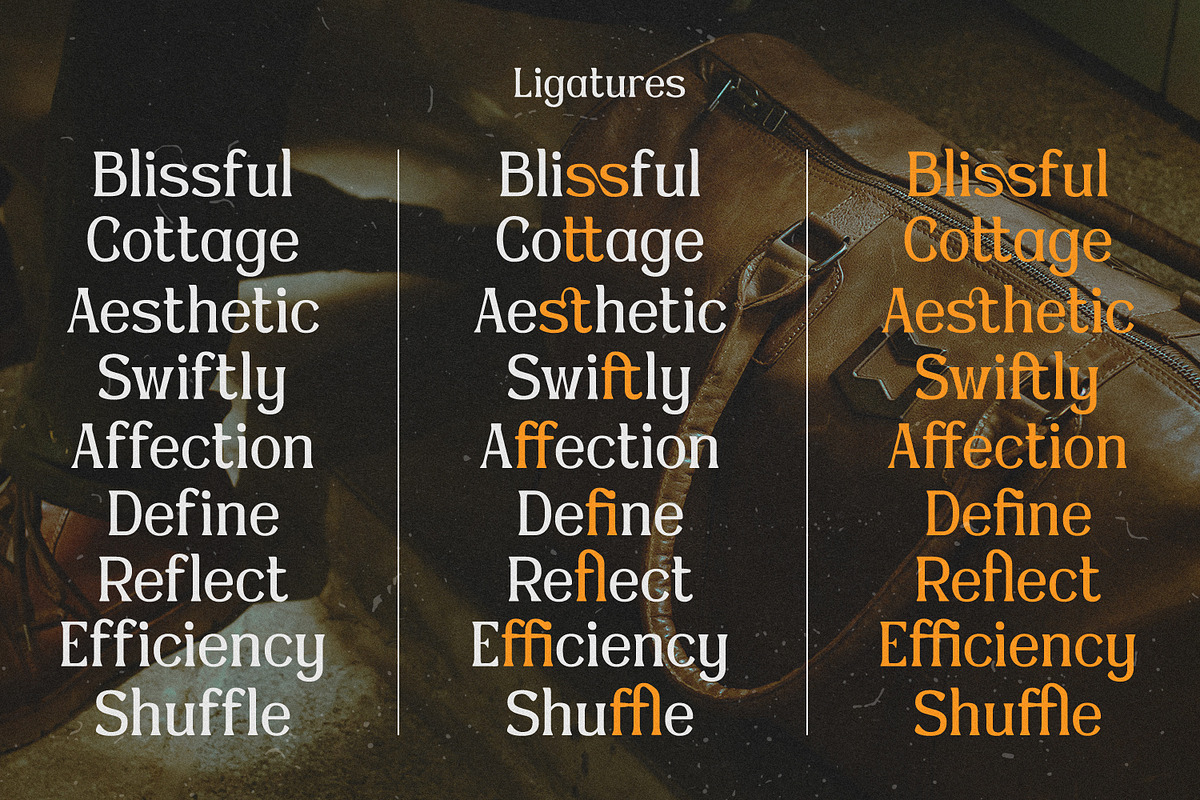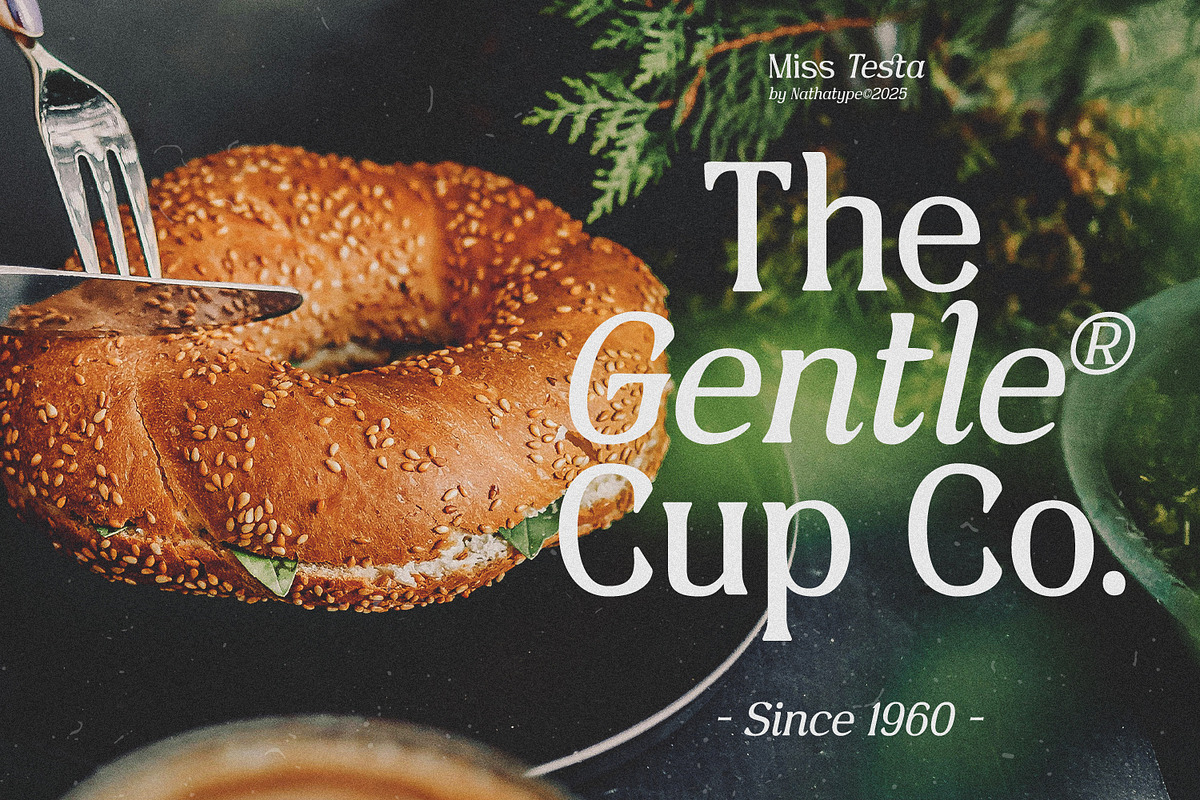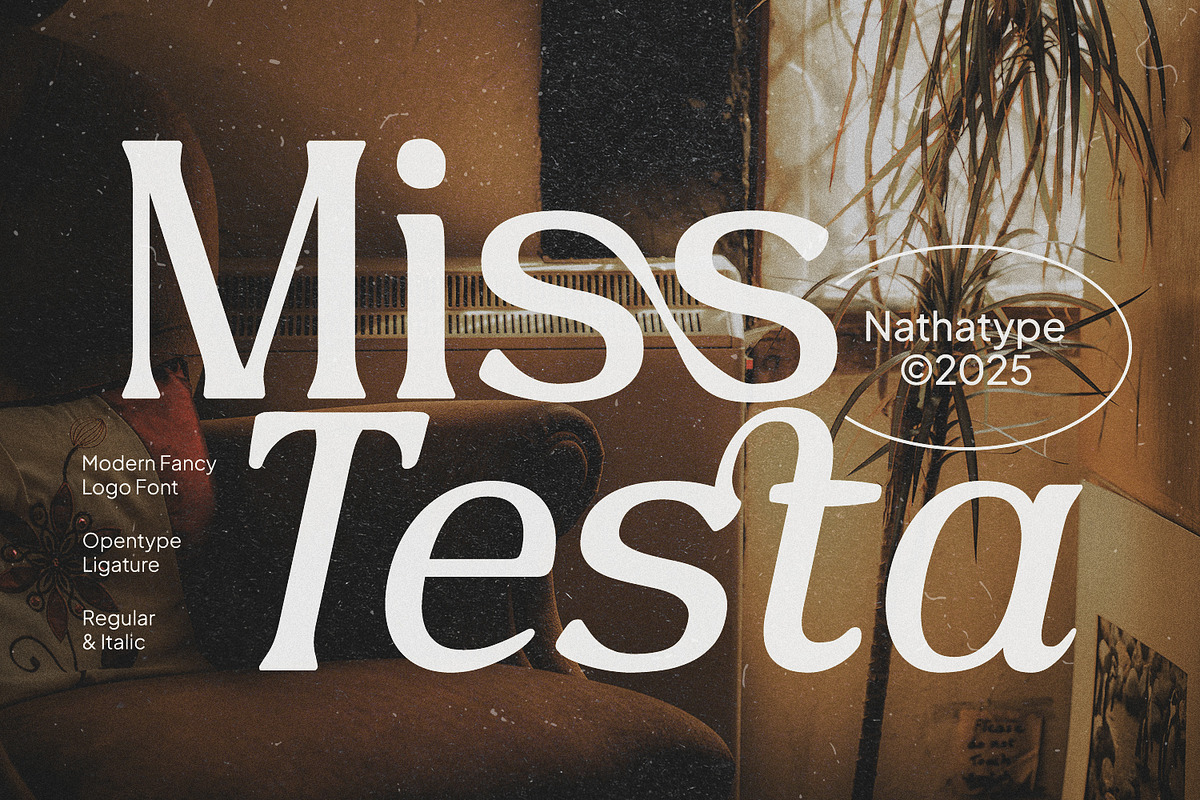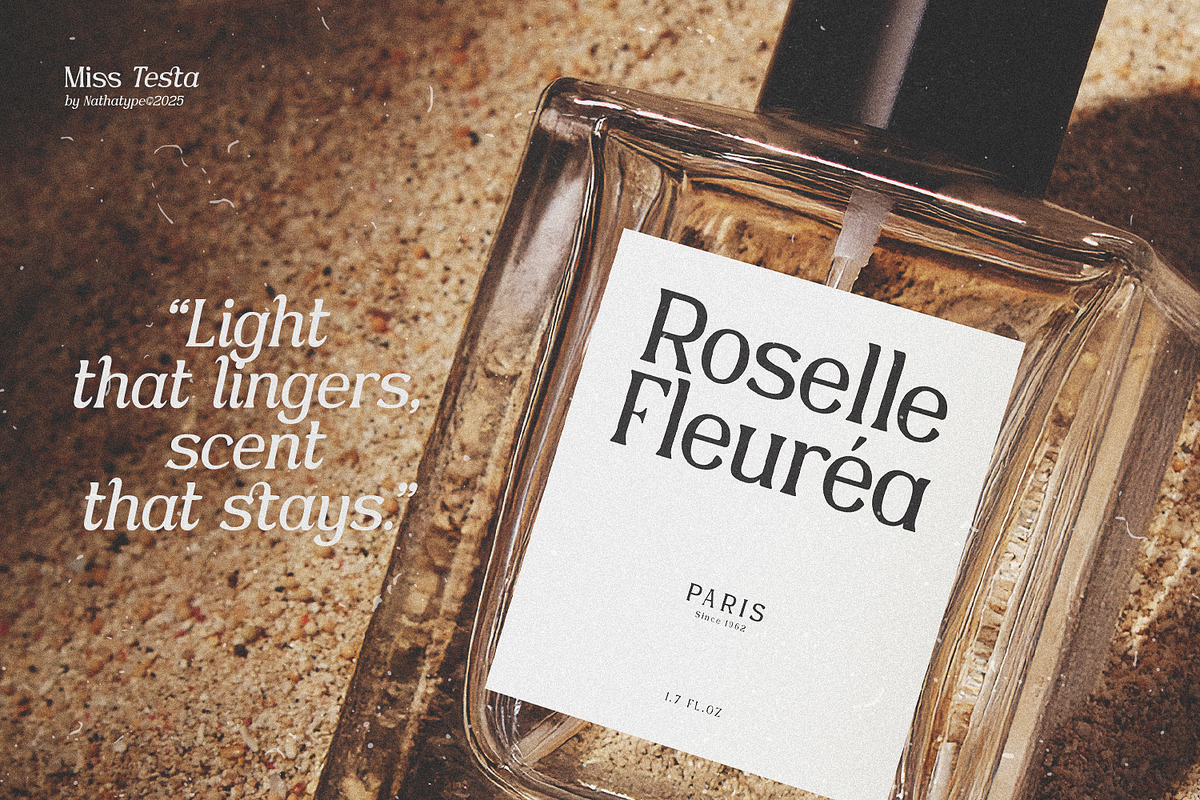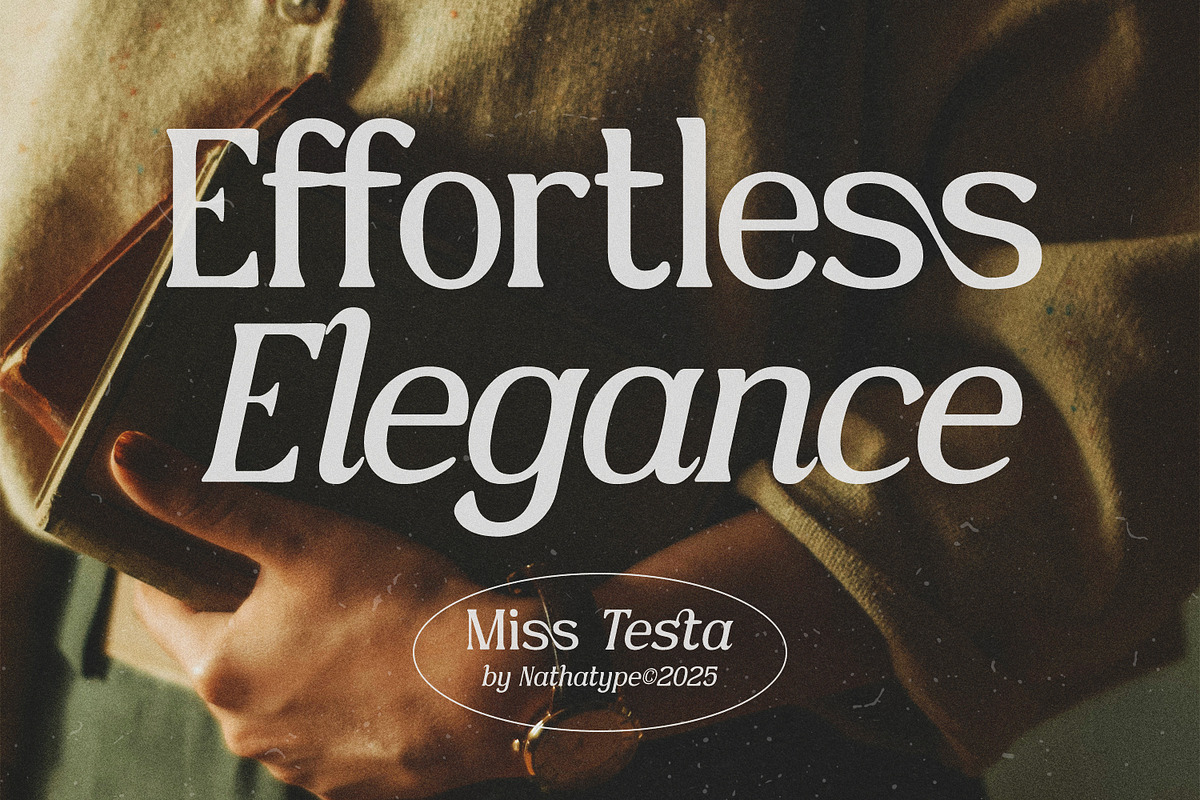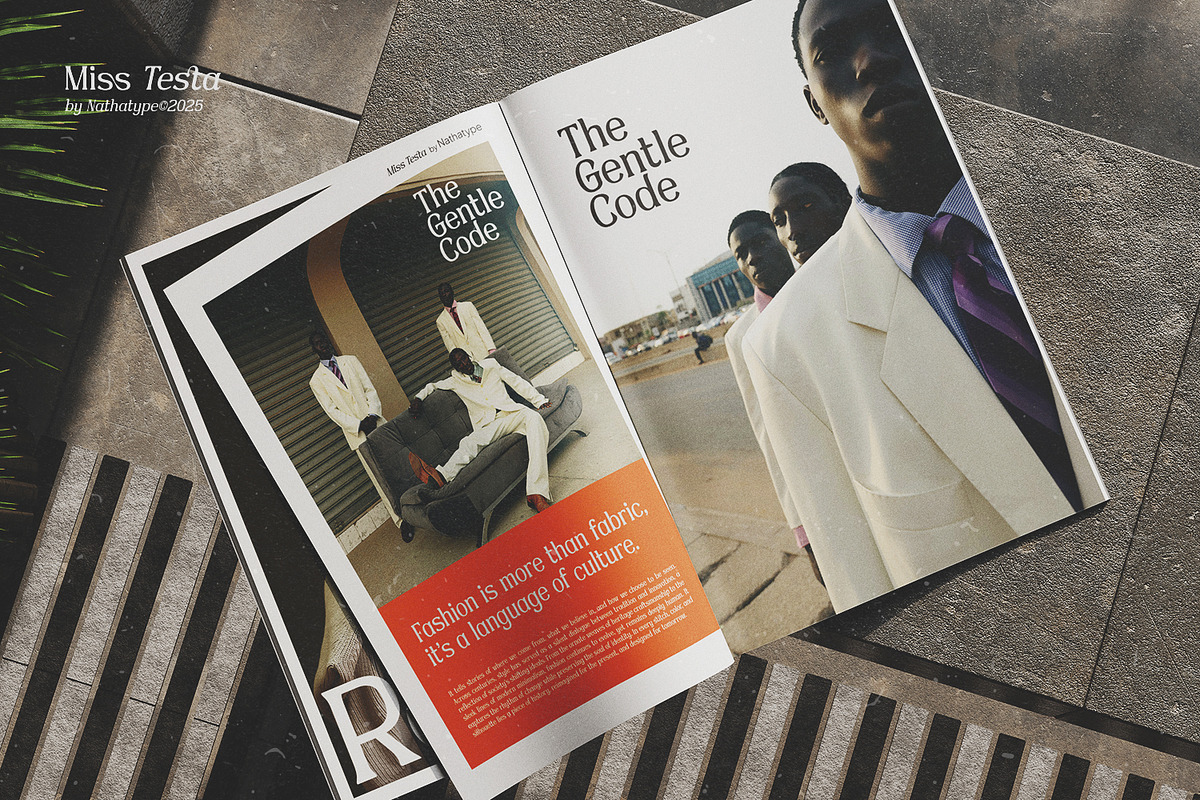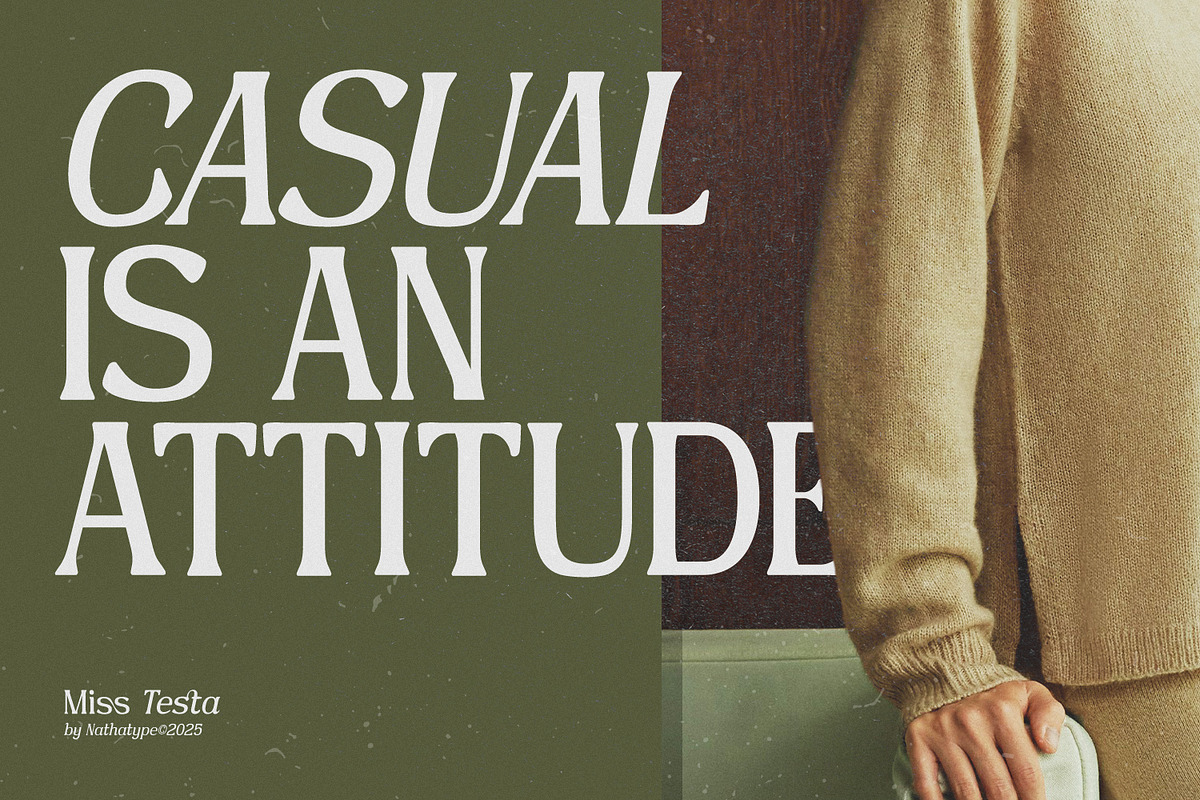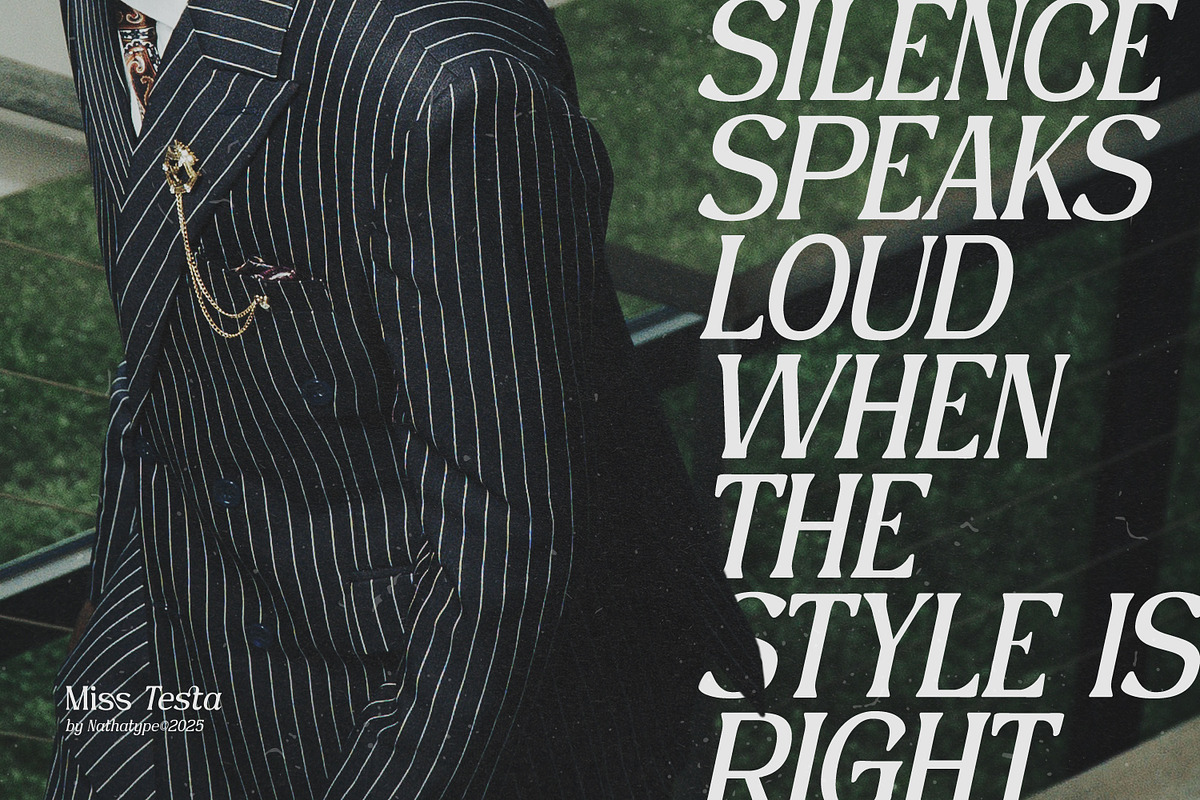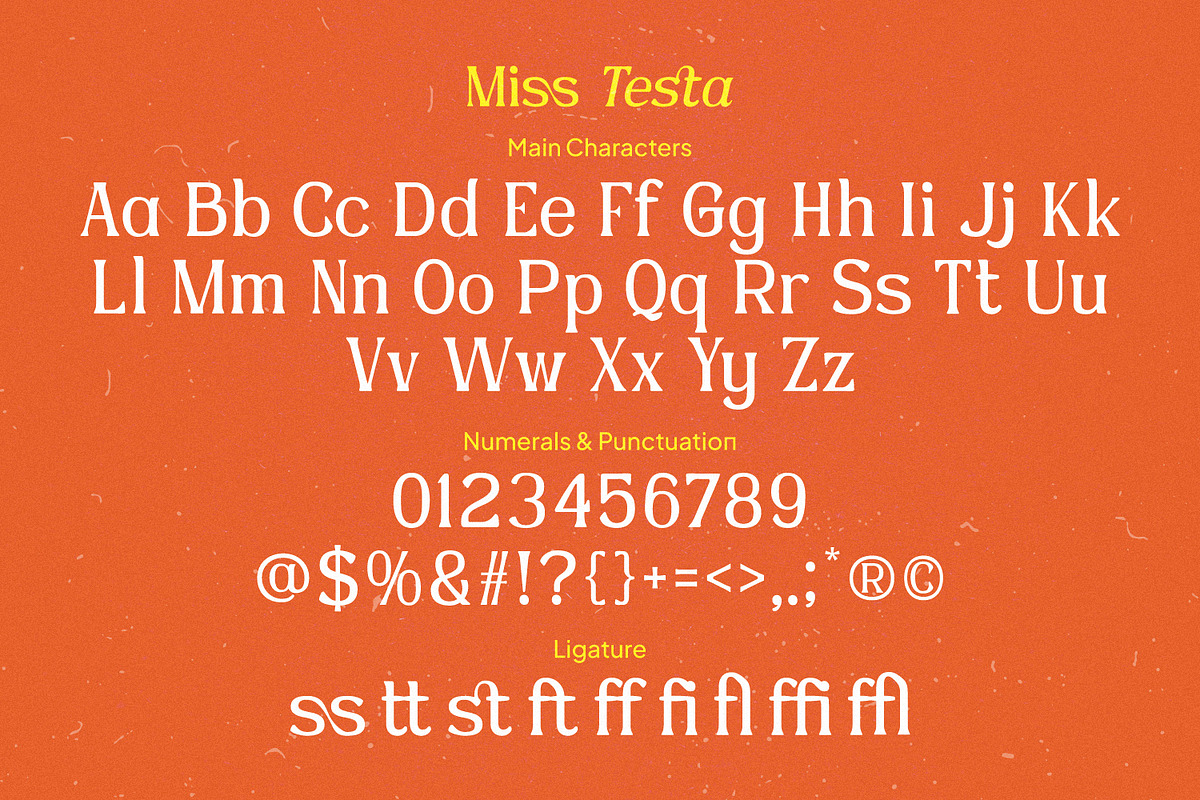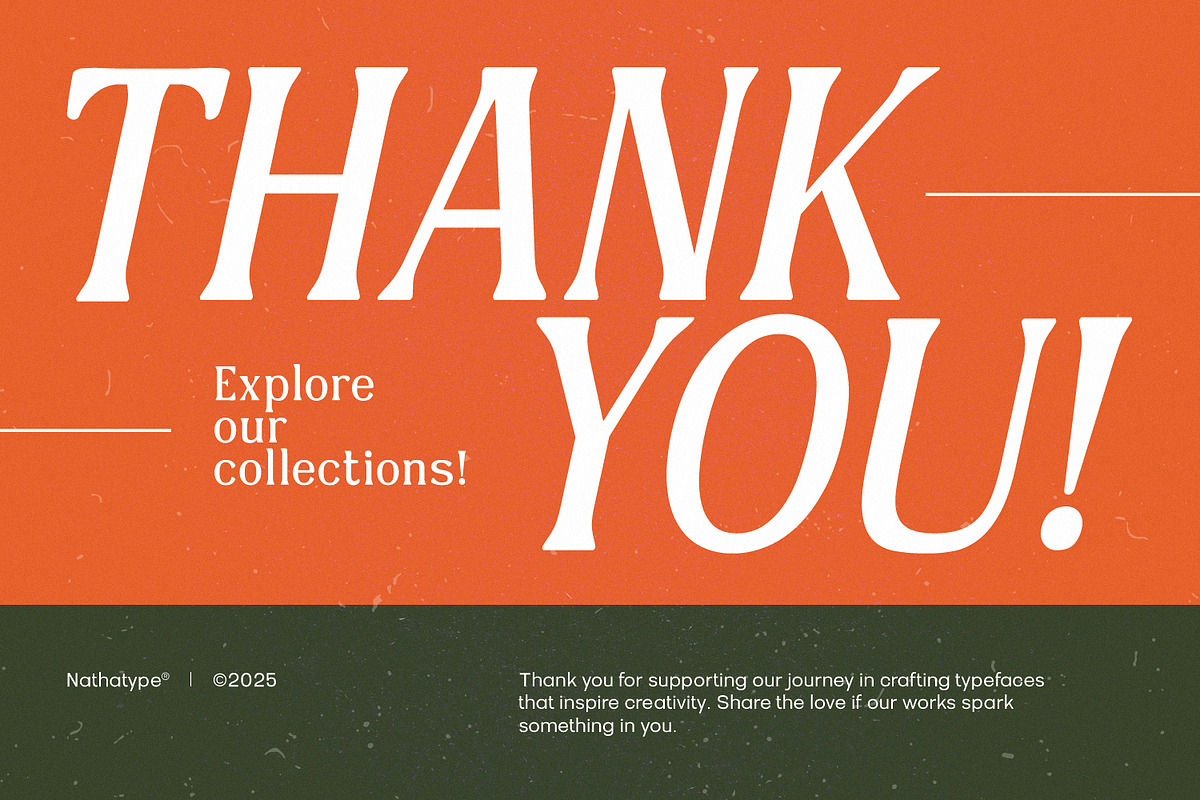
Miss Testa
Miss Testa is a modern sans serif logotype font crafted to deliver clean aesthetics, refined simplicity, and strong contemporary character. Designed with regular and italic styles, this versatile typeface provides a professional visual identity suitable for every design. With its smooth shapes, balanced proportions, and minimalistic elegance, Miss Testa is the perfect choice for designers seeking a timeless yet modern typographic solution. In addition, enjoy the features here.
Miss Testa fits in logos, quotes, invitations, branding, posters, and many more designs. Find out more ways to use this font by taking a look at the font preview.